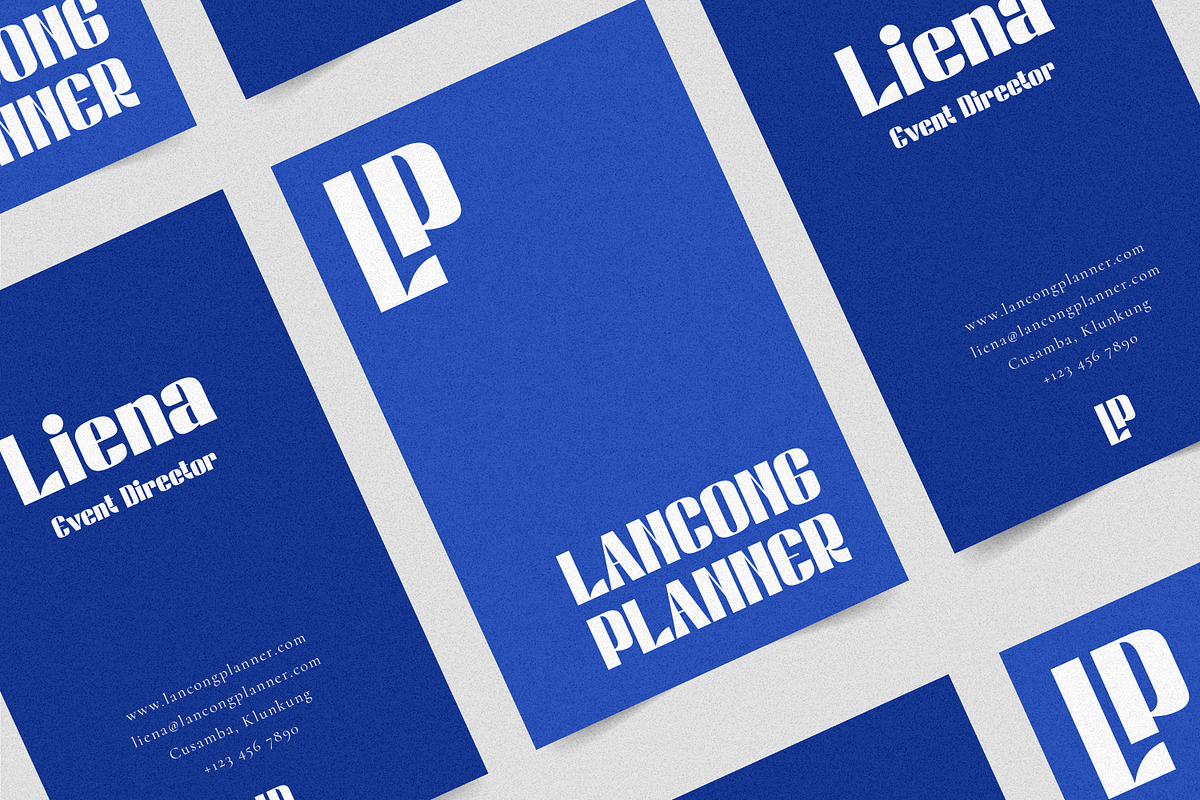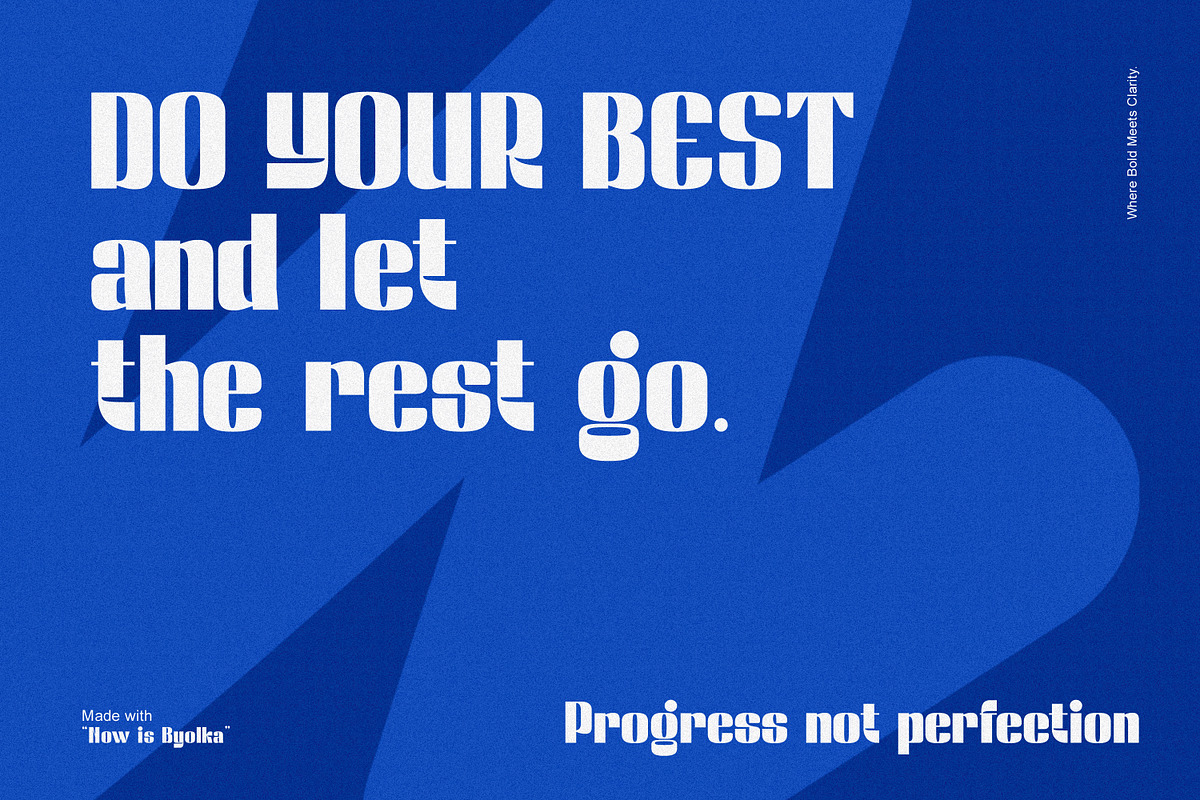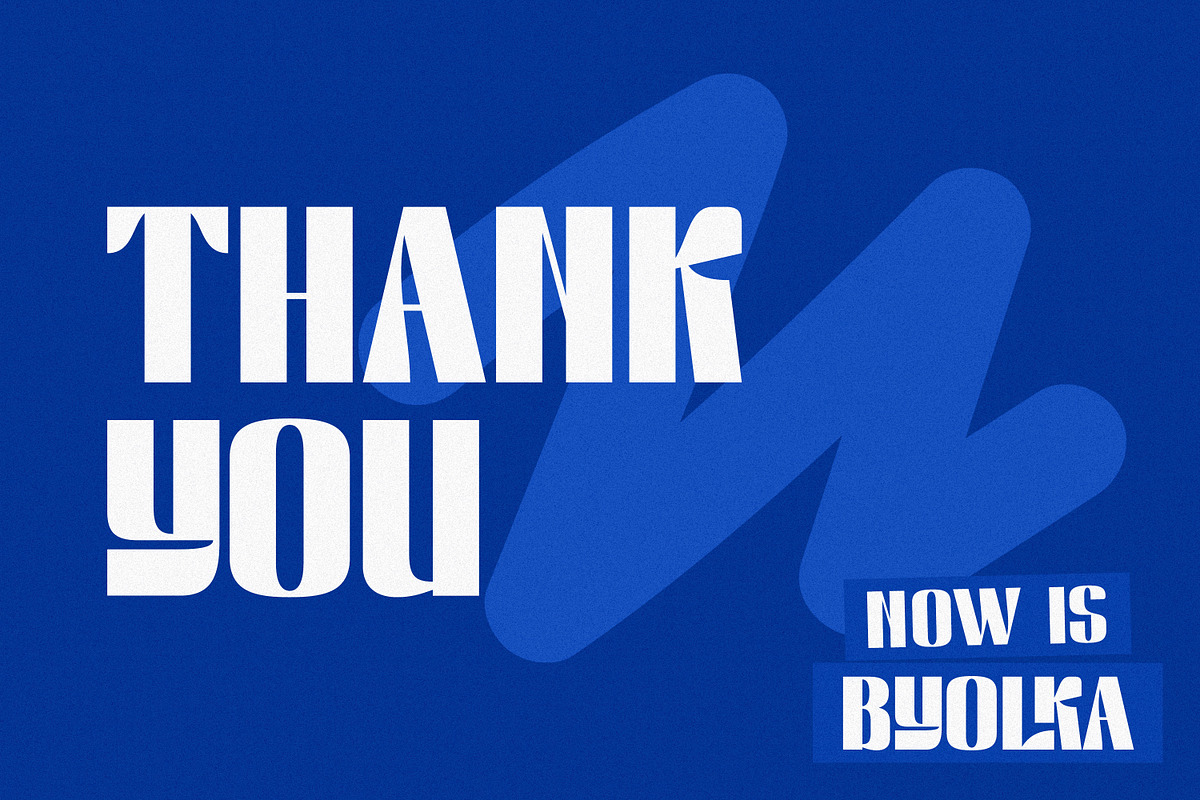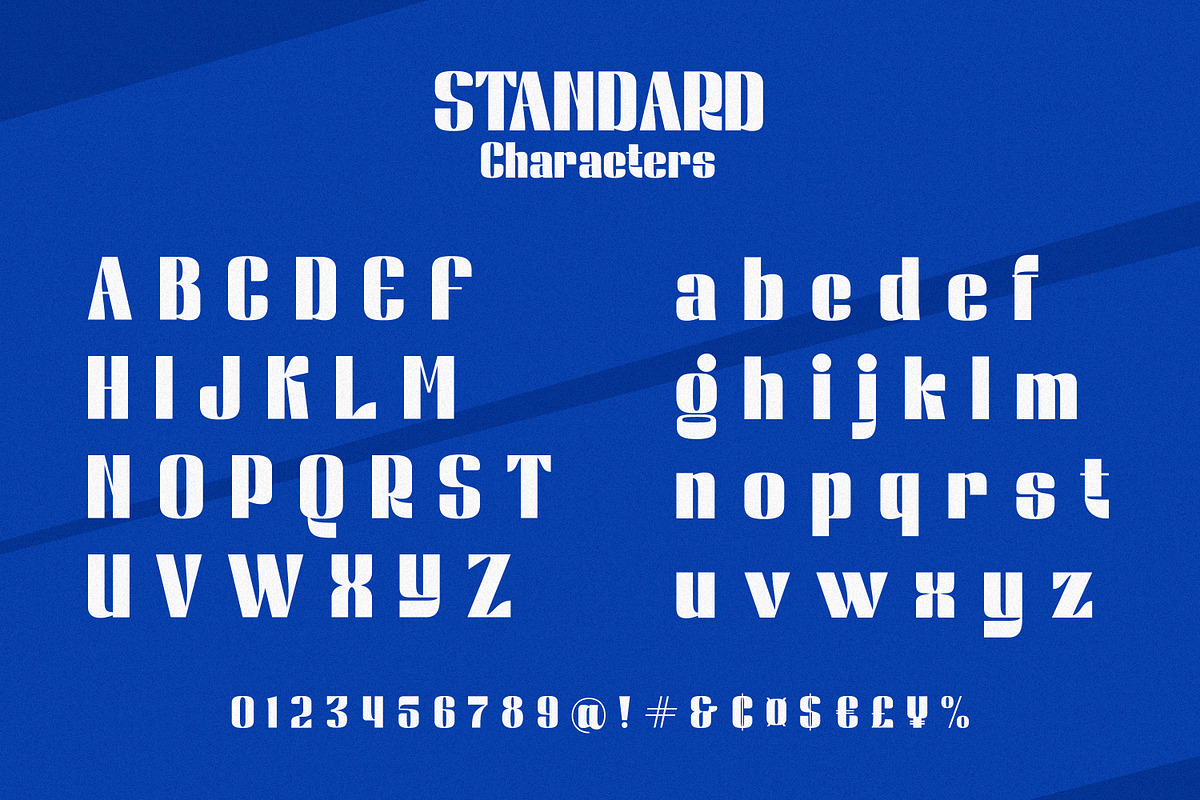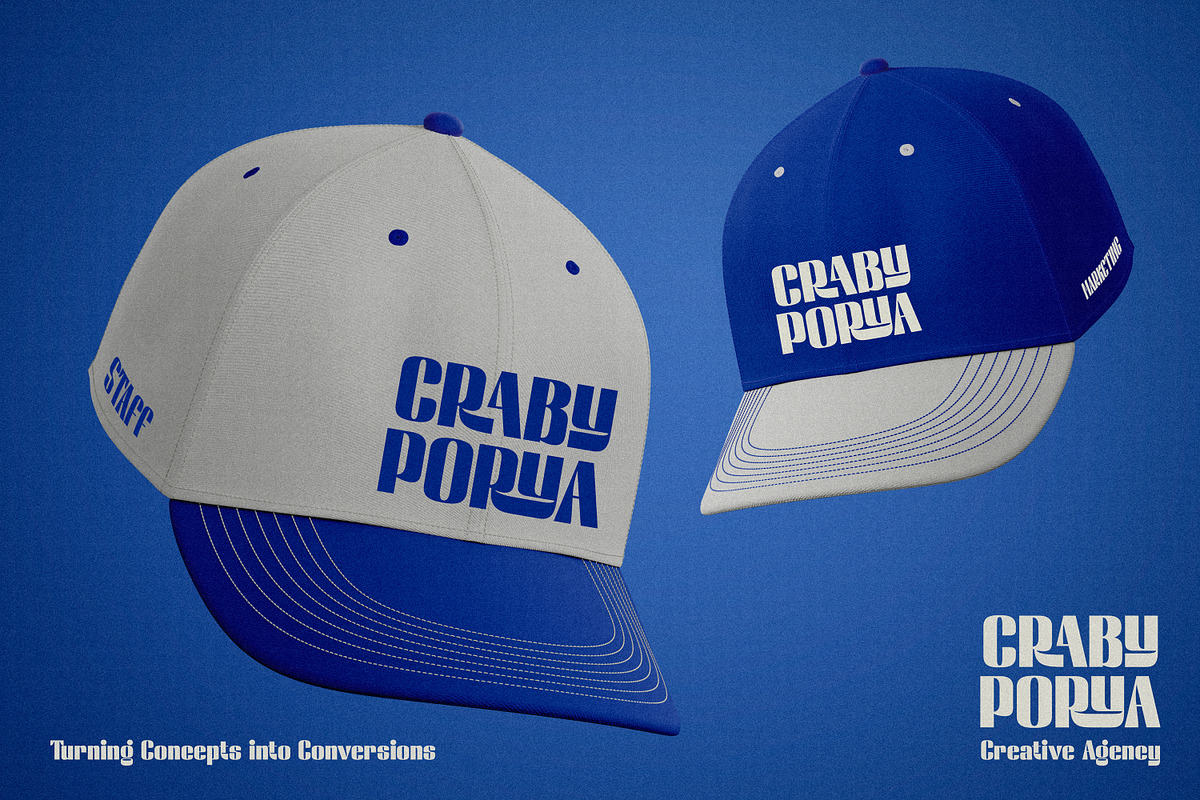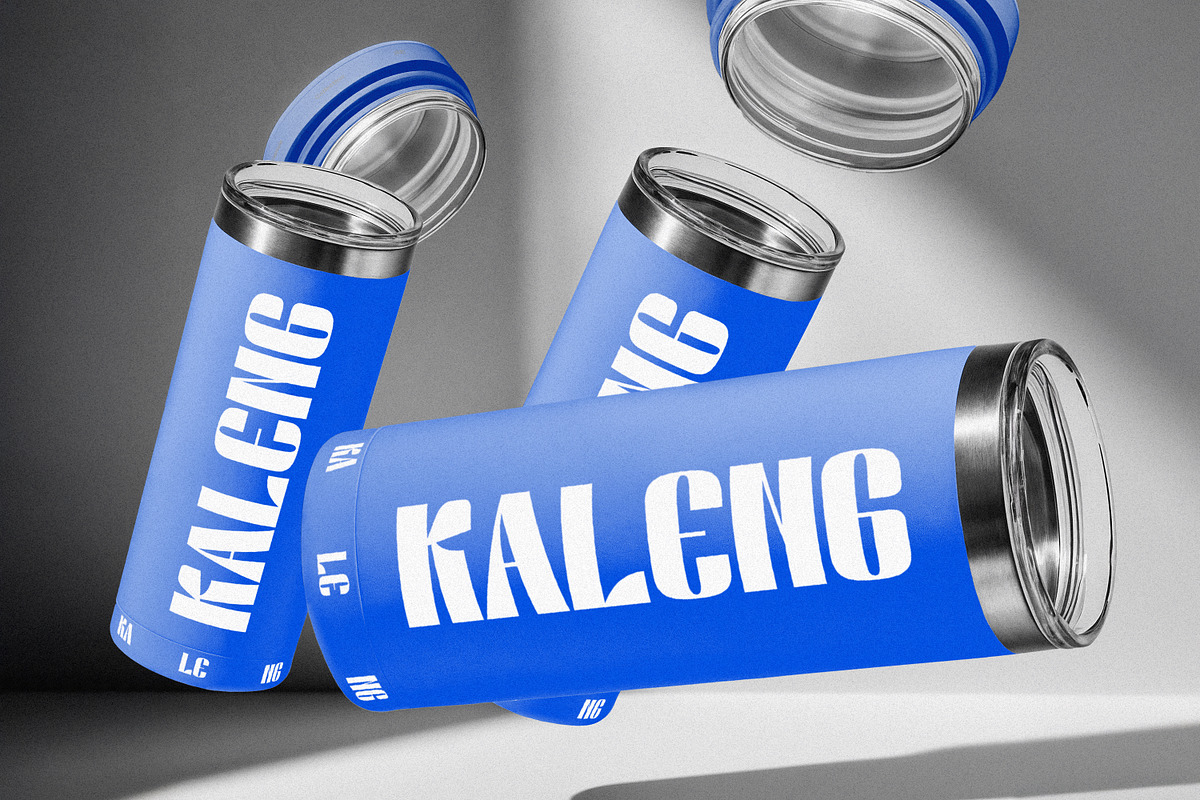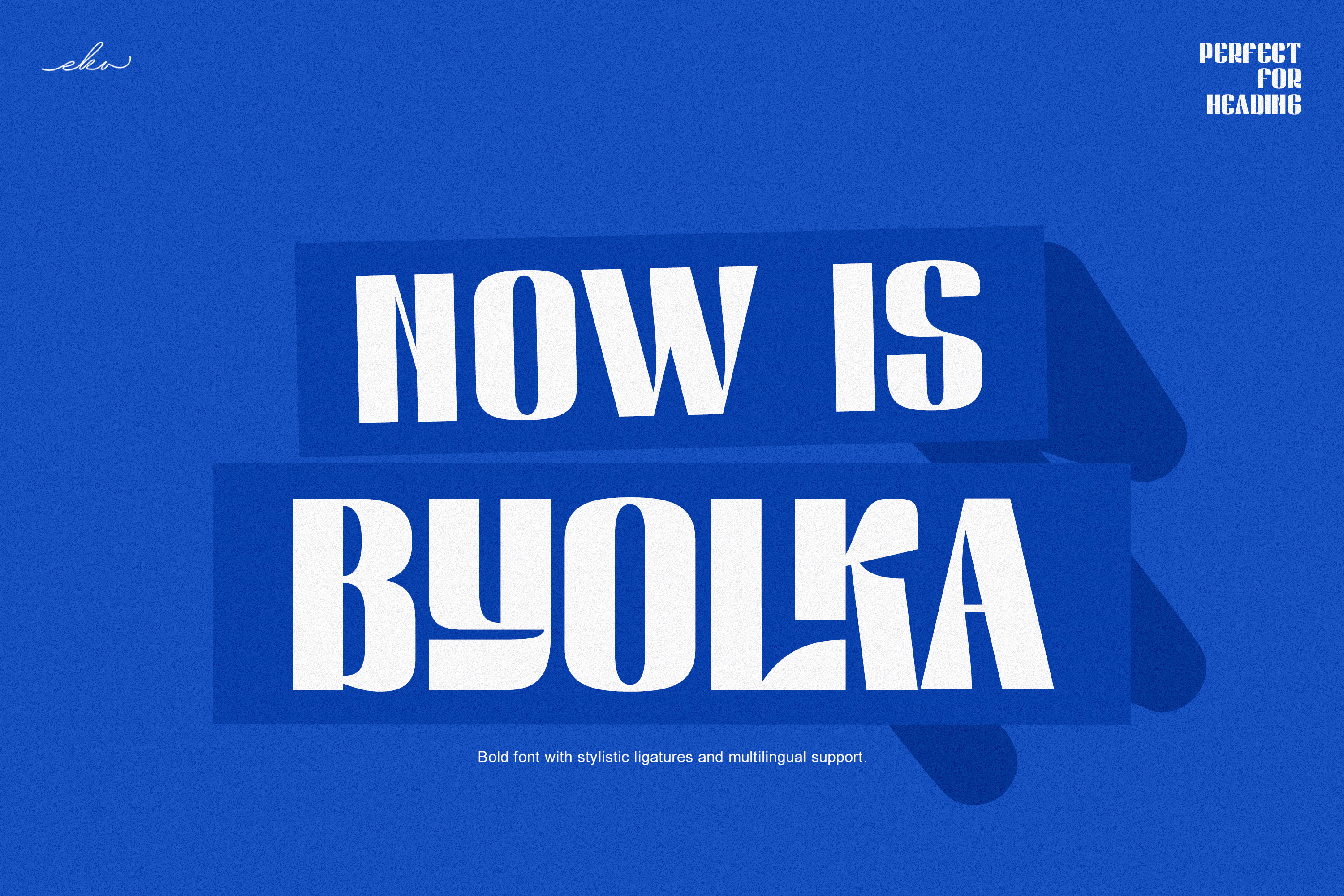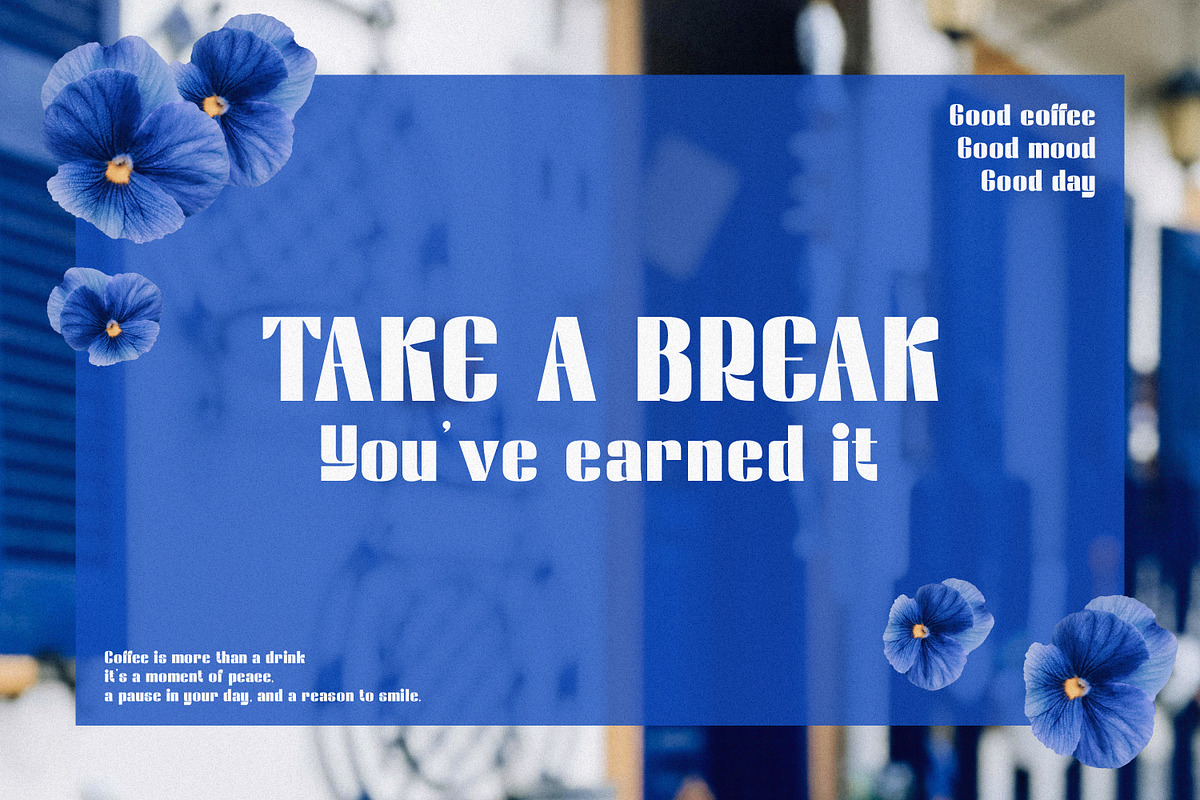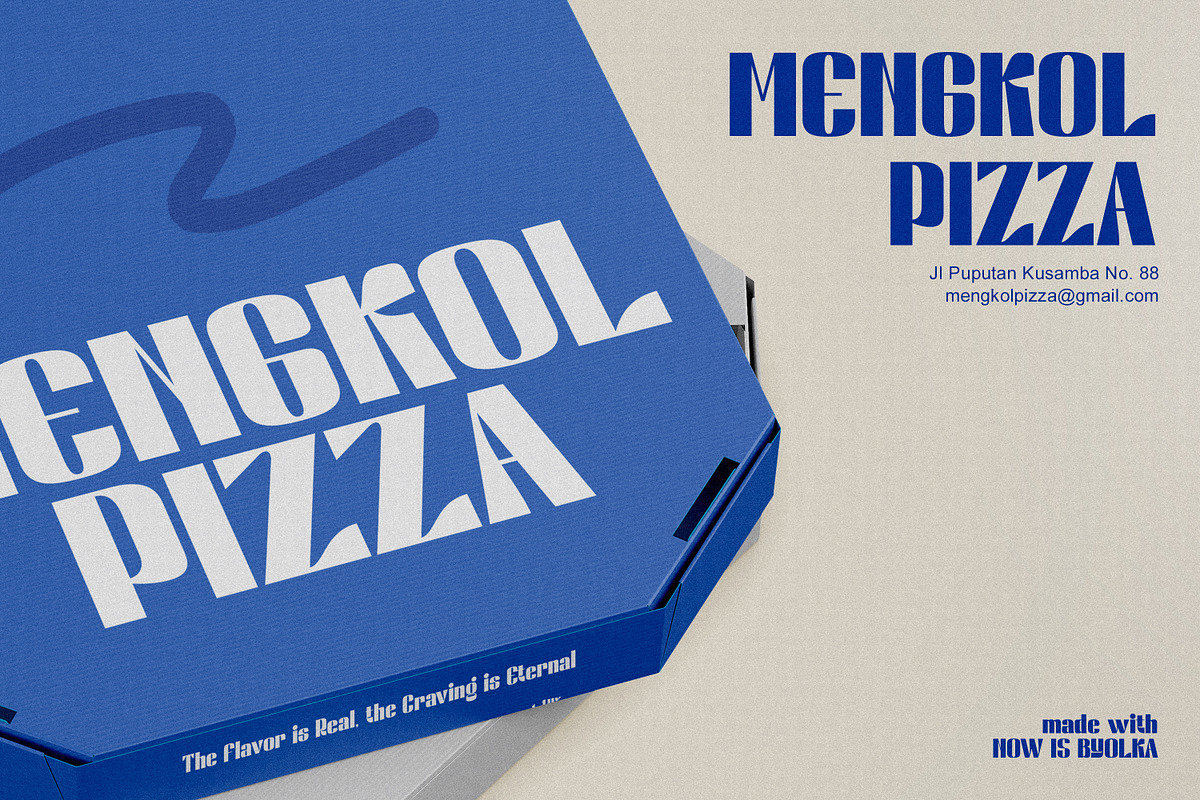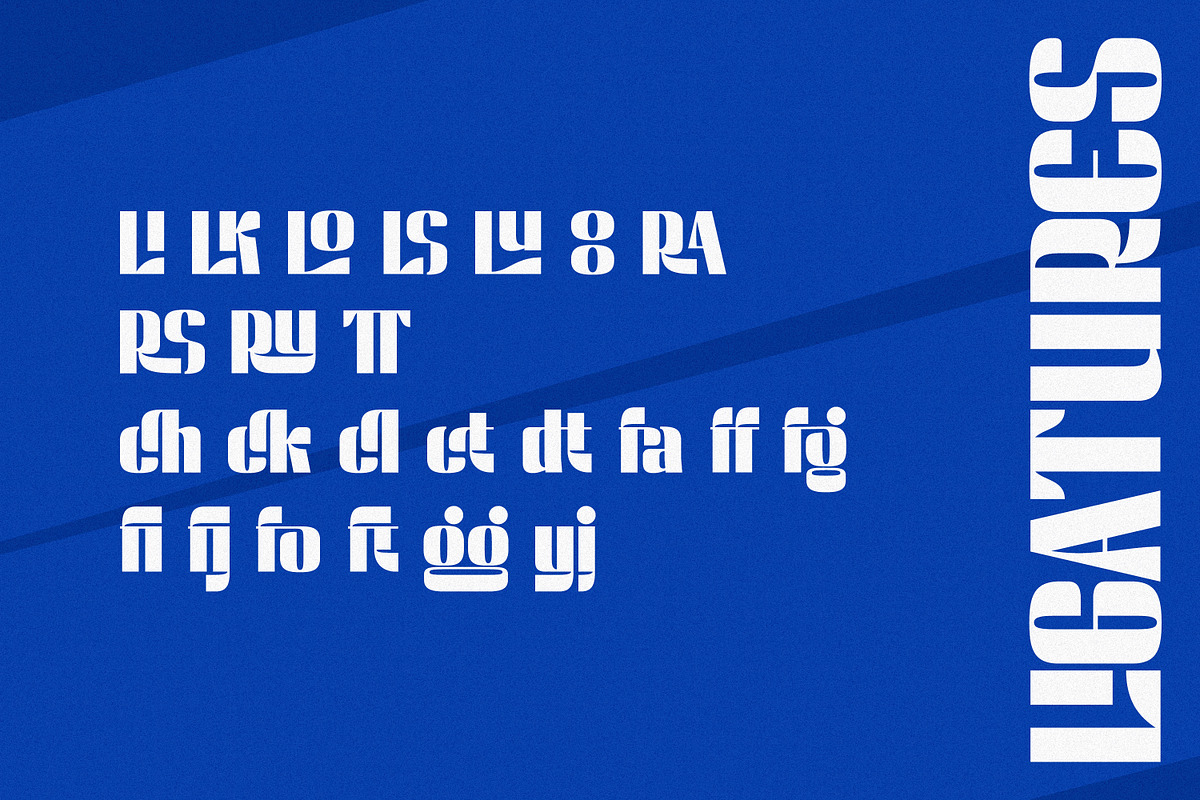
Now is Byolka | Display Font
NOW IS BYOLKA — Make Your Words Bold and Unforgettable! Meet NOW IS BYOLKA, a bold, modern display font made to turn every design into a statement. With its eye-catching curves, strong shapes, and stylish ligatures, NOW IS BYOLKA brings instant confidence and creativity to your work. Perfect for logos, posters, headlines, packaging, and social media, this font makes sure your message stands out loud and proud. Whether you’re building a bold brand or crafting stylish merch, NOW IS BYOLKA adds power and personality to every letter. Why You’ll Love It: Bold & confident — designed to grab attention instantly, Unique letter shapes with stylish ligatures, Multilingual support, Easy to use, looks amazing in both large and short text, Perfect for posters, branding, ads, apparel, and more! Bring your designs to life and make them unforgettable with NOW IS BYOLKA — where bold meets beautiful.